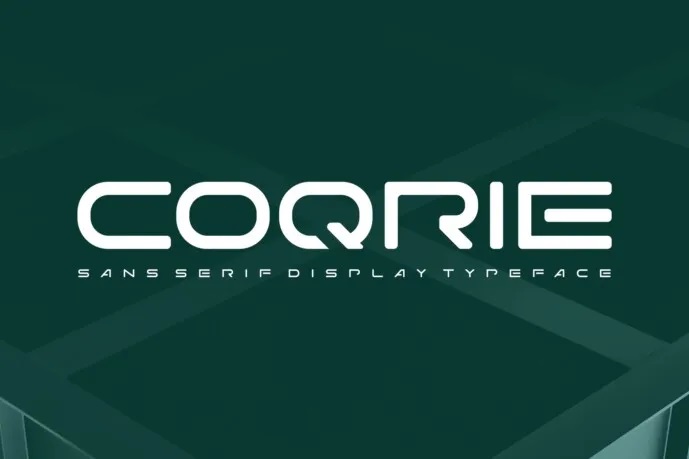
Coqrie Font
Coqrie is a bold and authentic display font. The font is suitable for any branding project like Logo, t-shirt printing, esports and many more. Excellent in a wide range of contexts. The free version provides all uppercase and lowercase letters and a few special characters too.
Coqrie Display Font